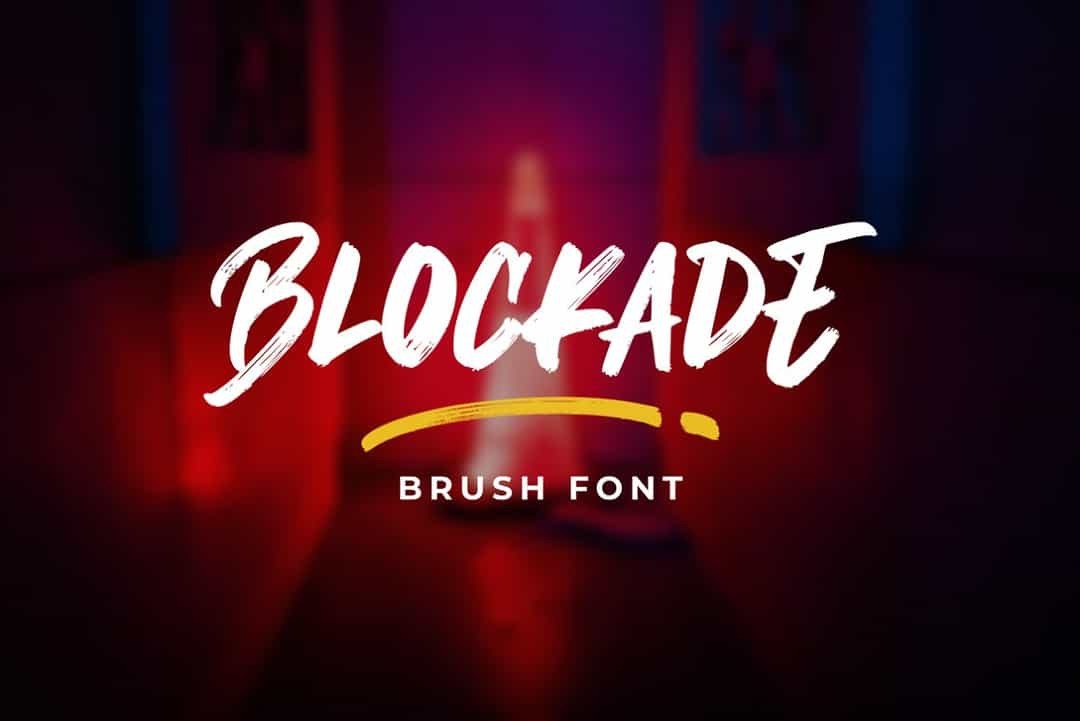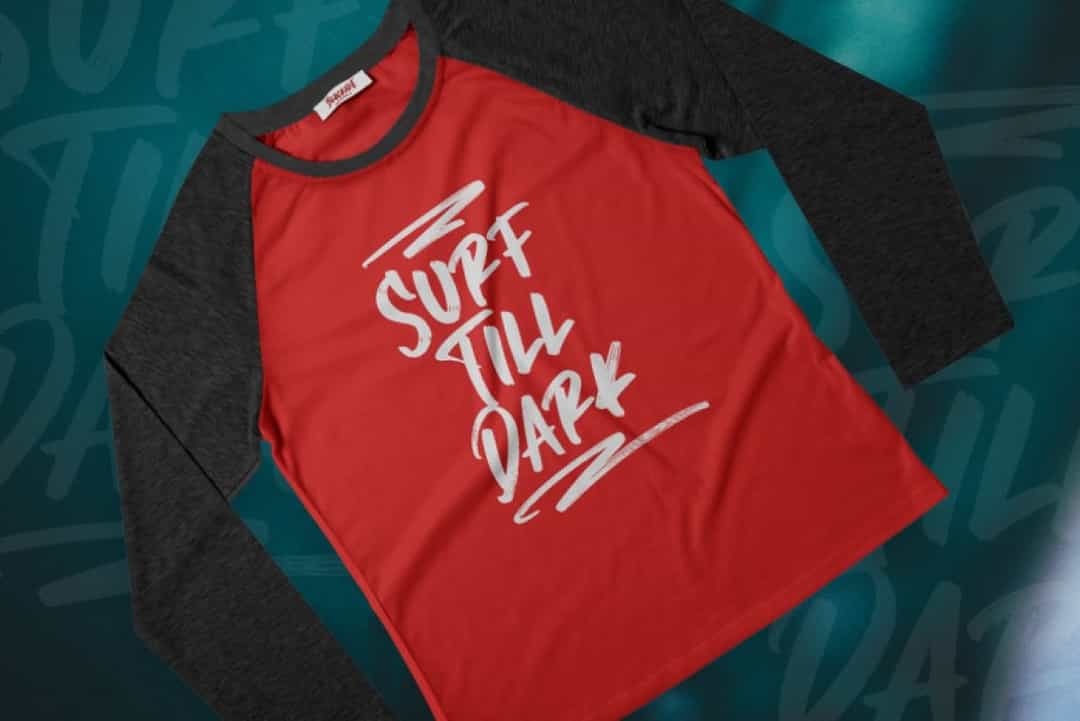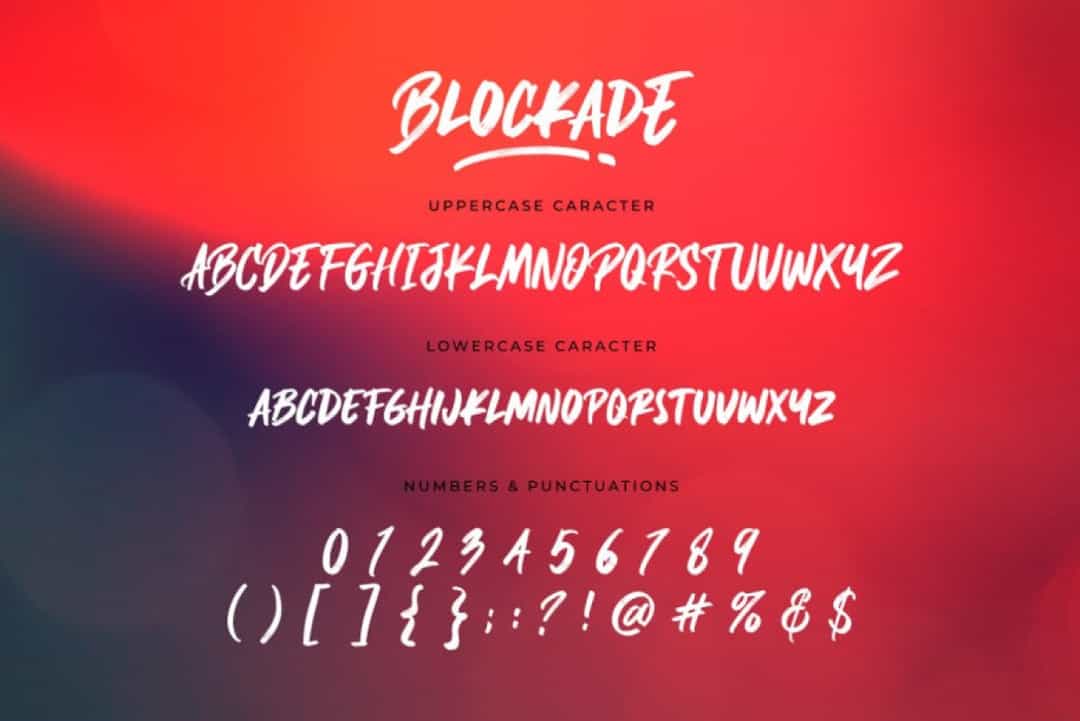
Discover Blockade Font, part of the Brush collection—a versatile and unique font perfect for adding a personal touch to your projects. Download it for free and enjoy crafting designs with style, from invitations to social media posts. This font is available exclusively for personal use, giving you the freedom to create without limits. Unlock your creativity with Blockade Font today!
Blockade is our latest font brush offering. Blockade fonts can be used in modern projects such as watermarks, covers, clothing websites, posters branding and branding for branding posters. Blockade comes equipped with an underline sweep feature which allows it to blend perfectly into modern projects – just use your creativity! Blockade fonts make life simpler; use their simplicity and experience it for yourself today.